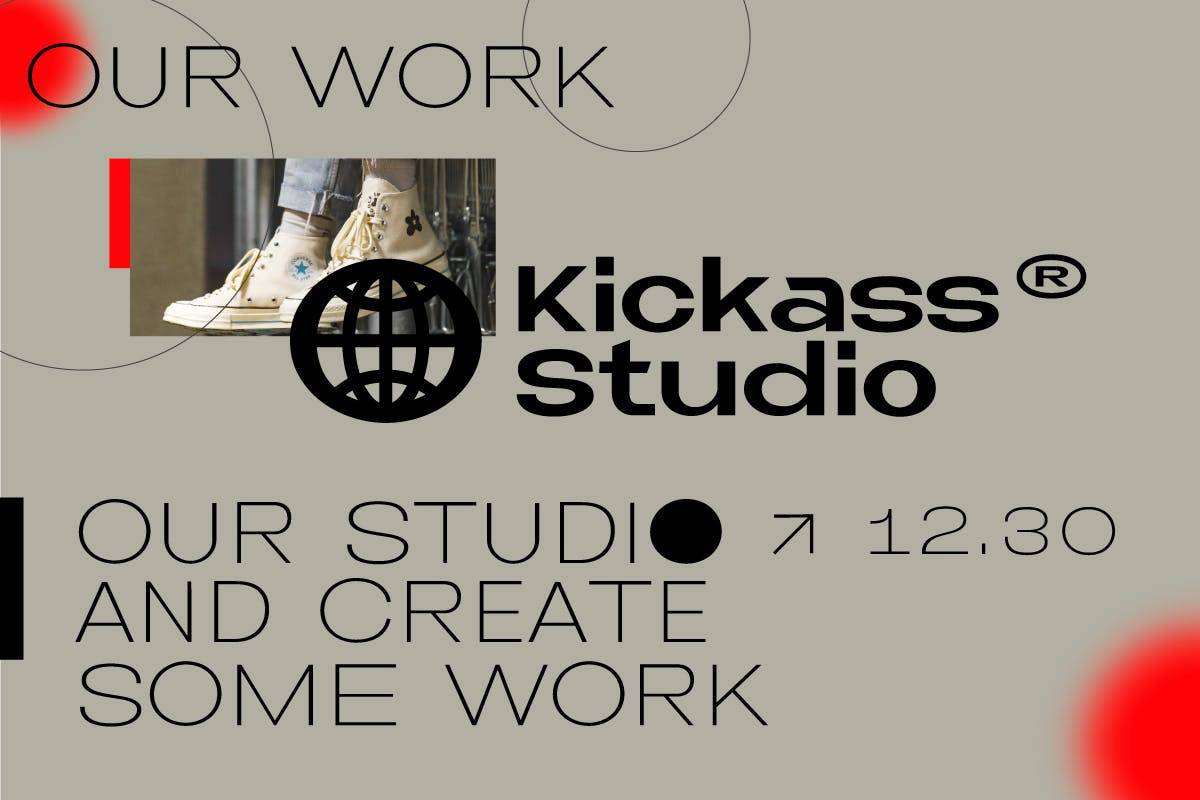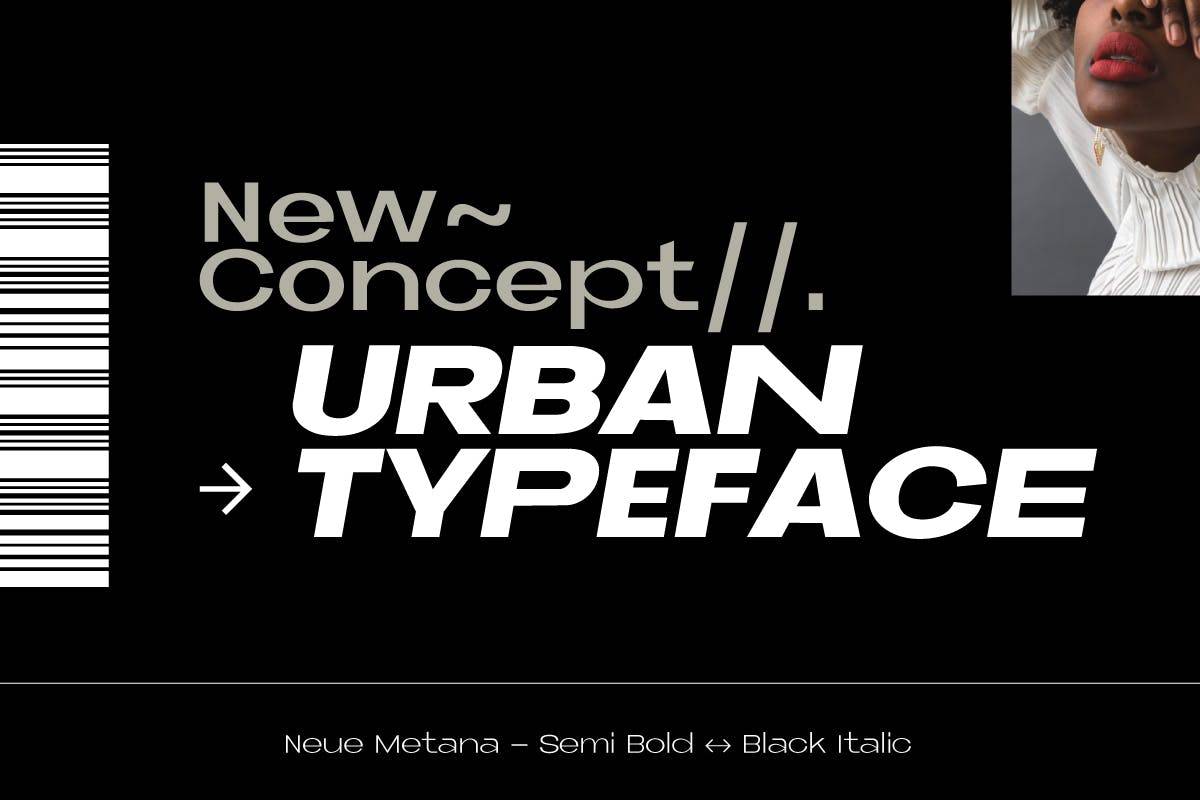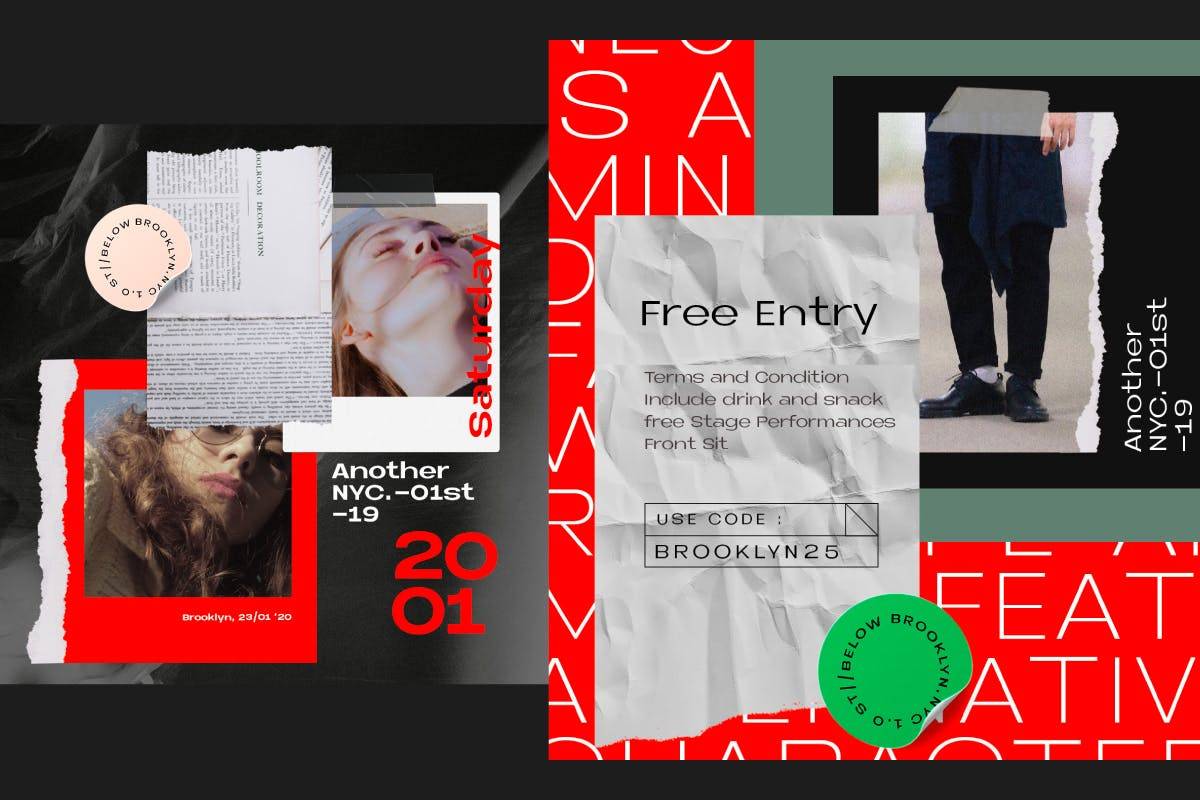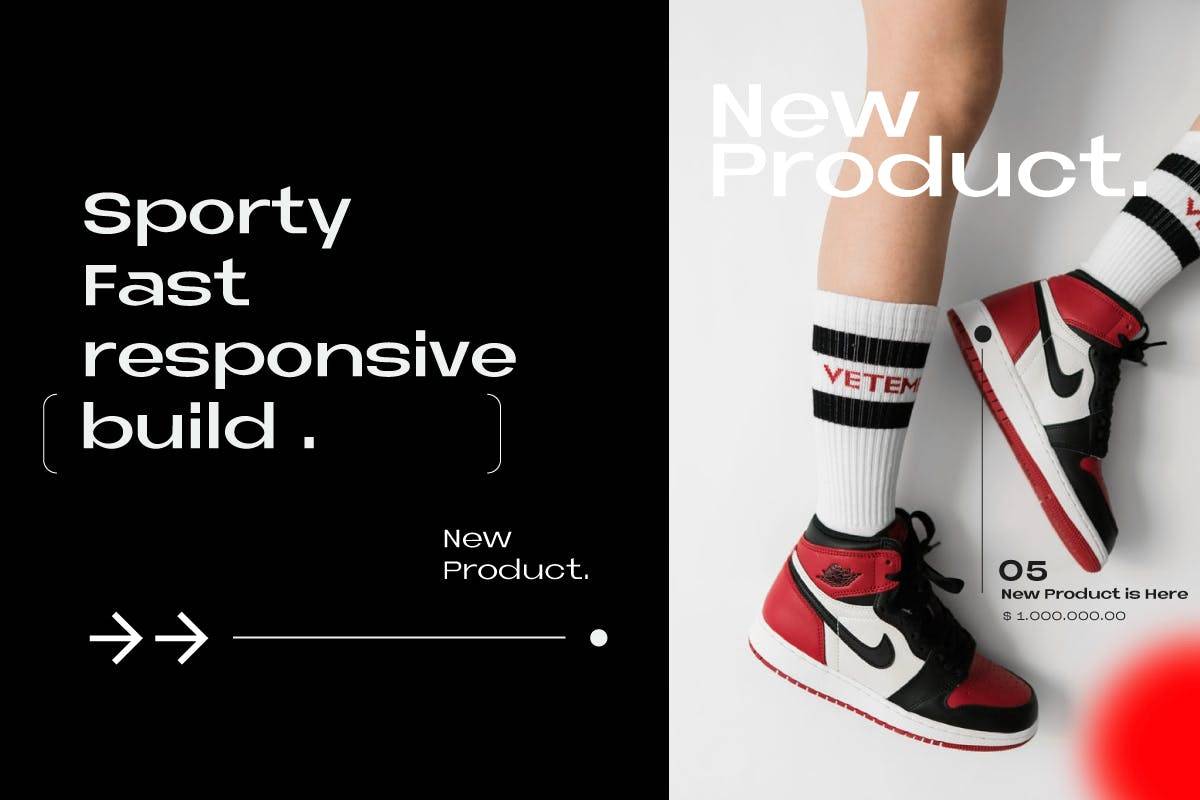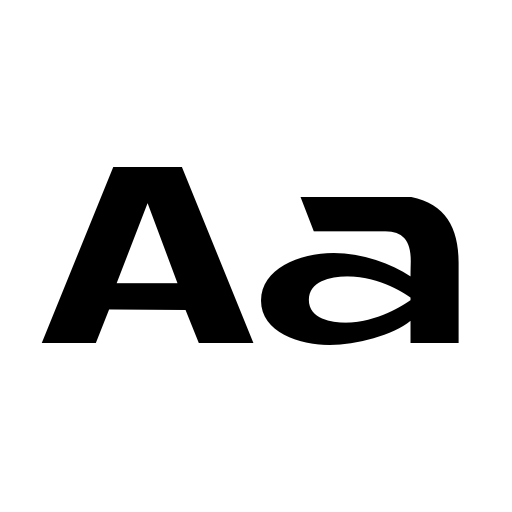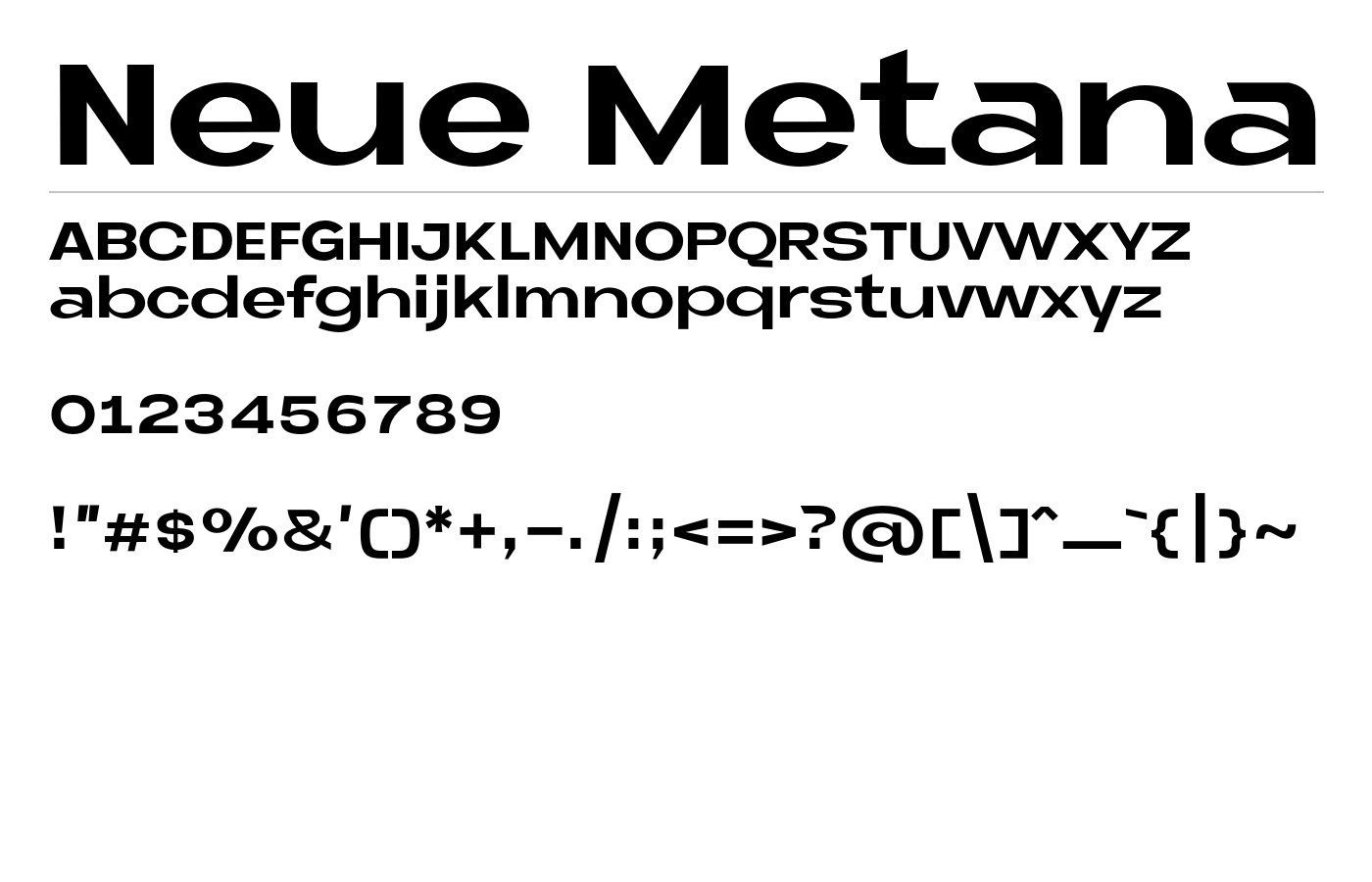
Neue Metana is a clean and modern sans serif font with a bold weight and moderate width, offering a sturdy yet approachable appearance. Its geometric shapes combined with subtle humanist curves create a balanced and versatile style, perfect for headlines, branding, and digital use where clarity and impact are essential. This font excels in contemporary designs that seek to convey professionalism and reliability with a fresh, friendly tone.